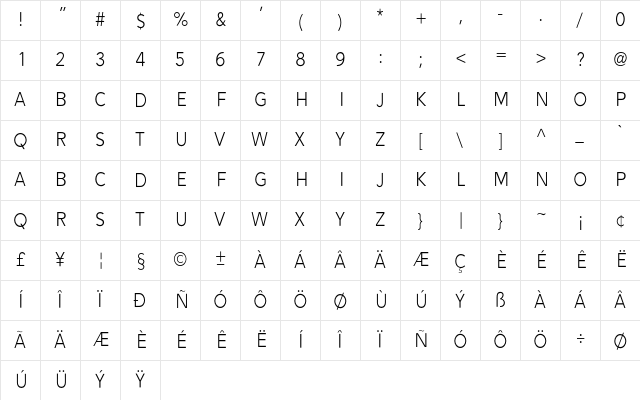
Alesand Light Regular
| Designer | Solidtype Studio |
Design Context for Alesand Light Typeface
Alesand Light takes a measured approach to typography — its balanced proportions and neutral character make it a reliable workhorse for both digital and print work. Its slender proportions lend an understated elegance to any composition.